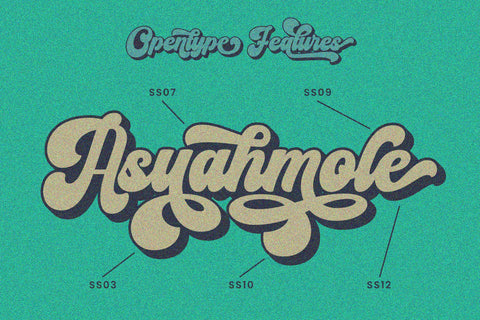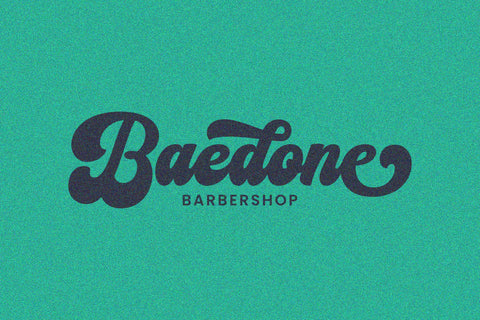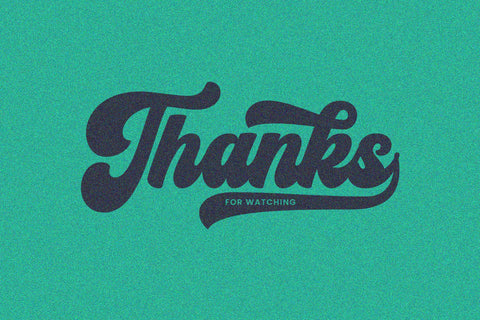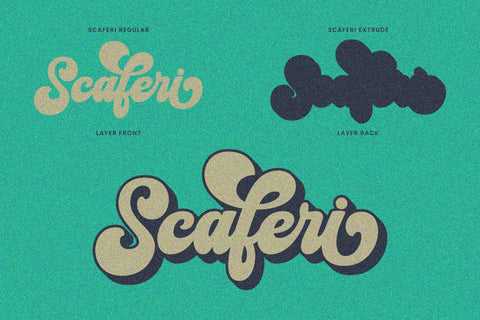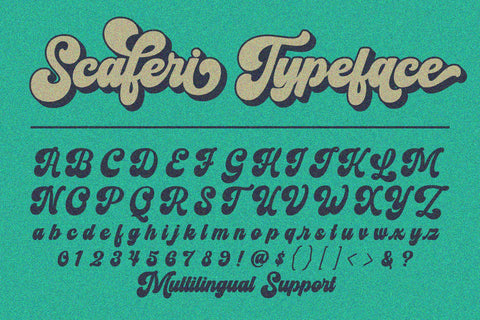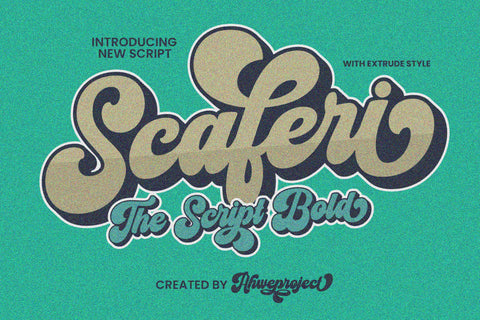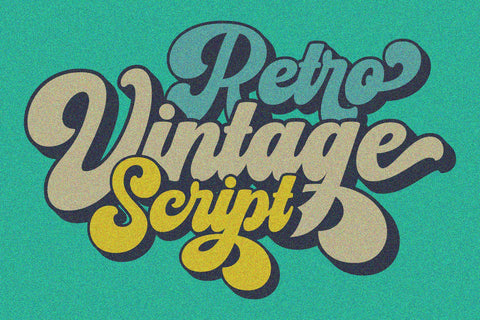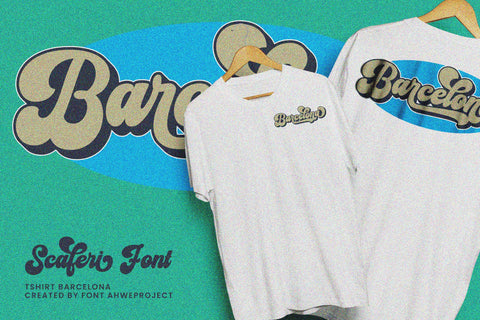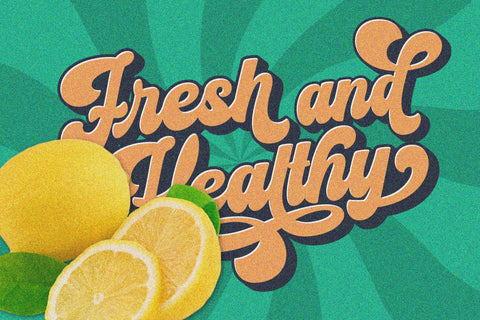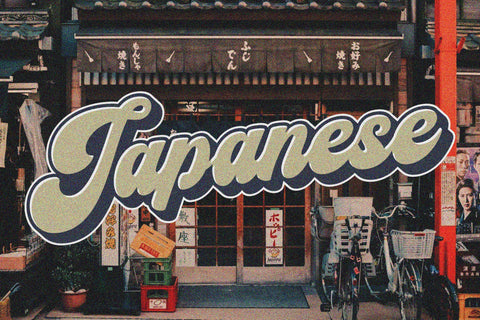
Scaferi
Scaferi is a fun, retro-style script display font that is ready to take your designs to the next level. Add it to your vintage-inspired posters, stickers, apparel, or social media posts and you will definitely impress your audience.